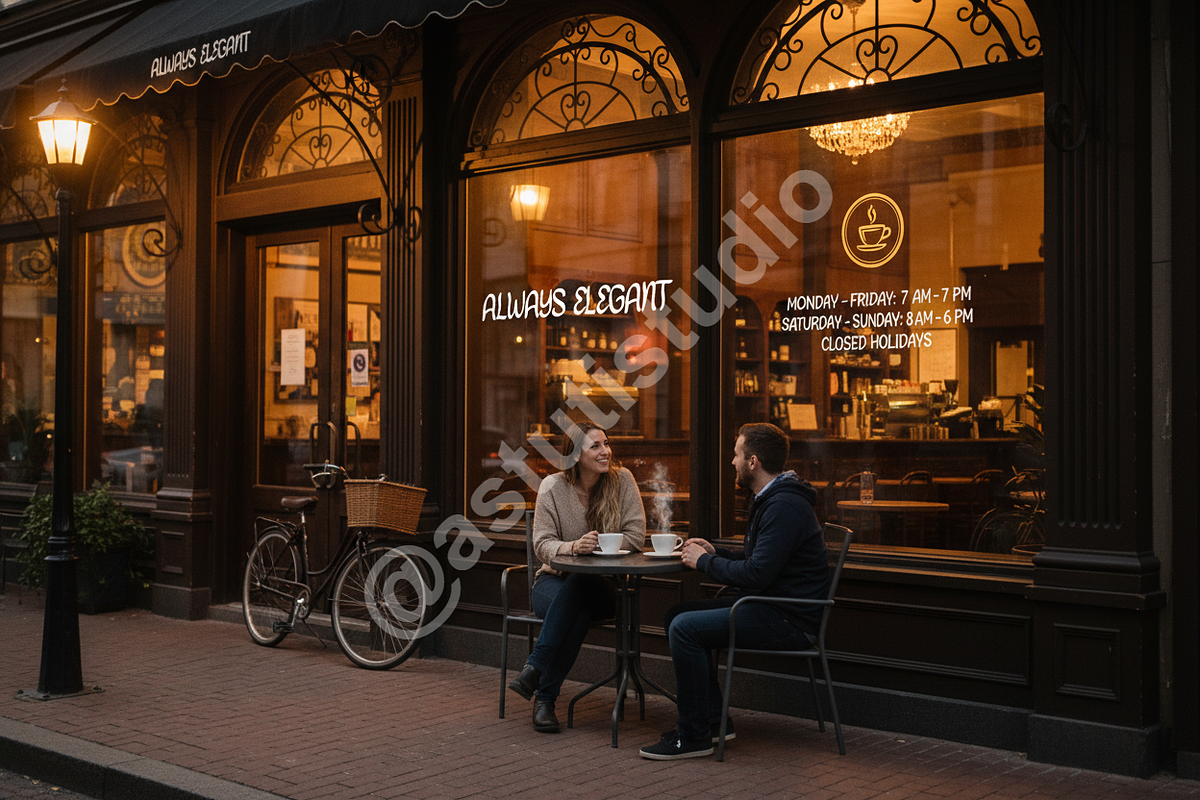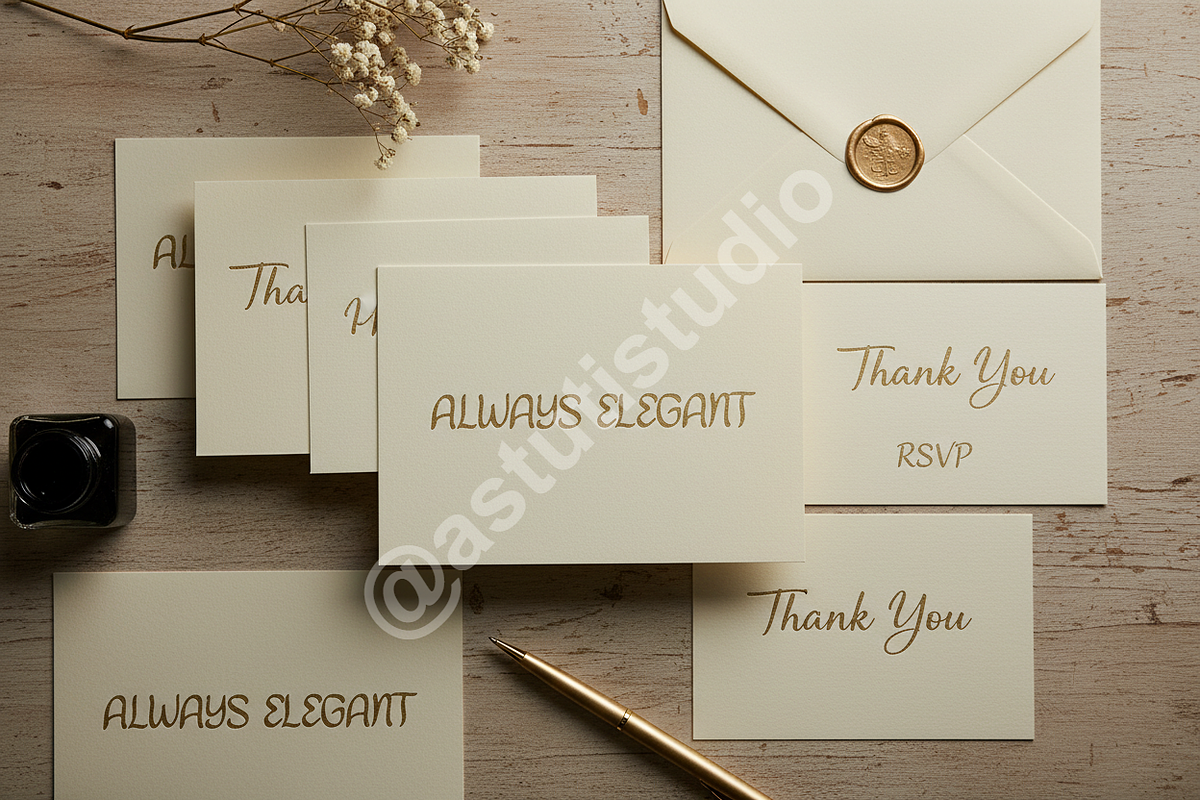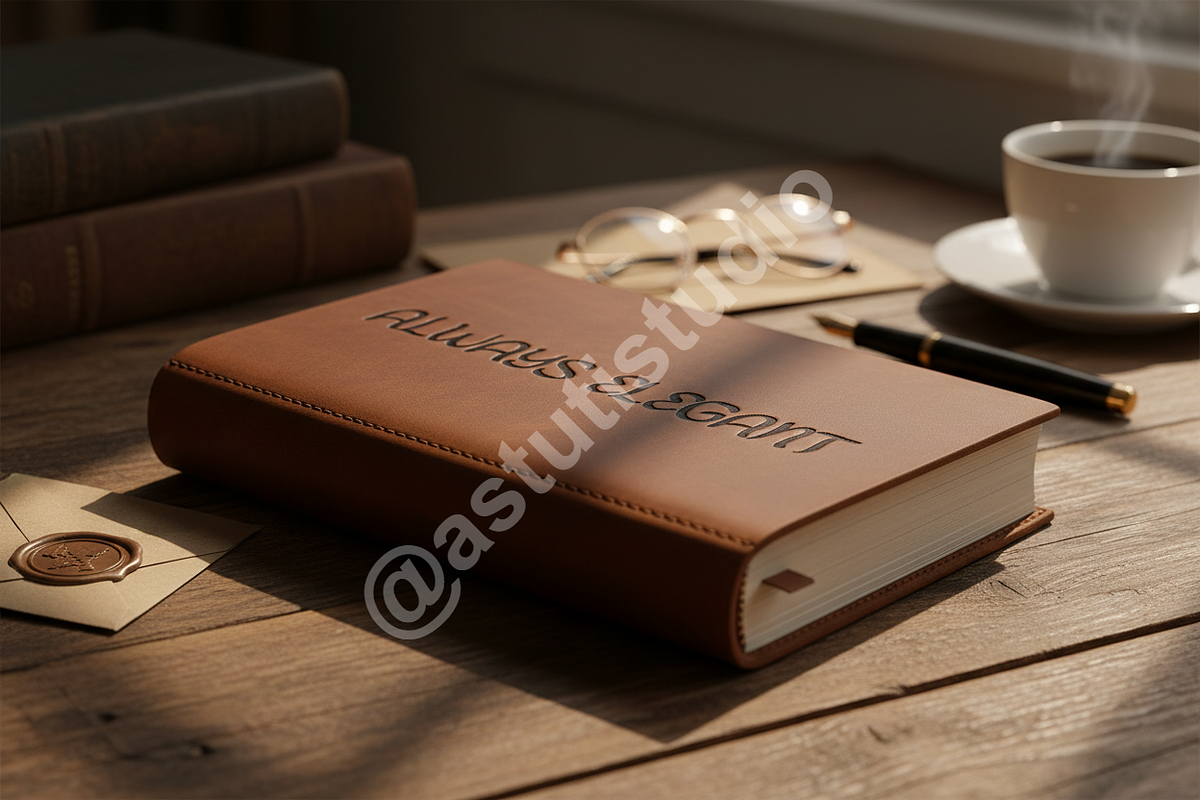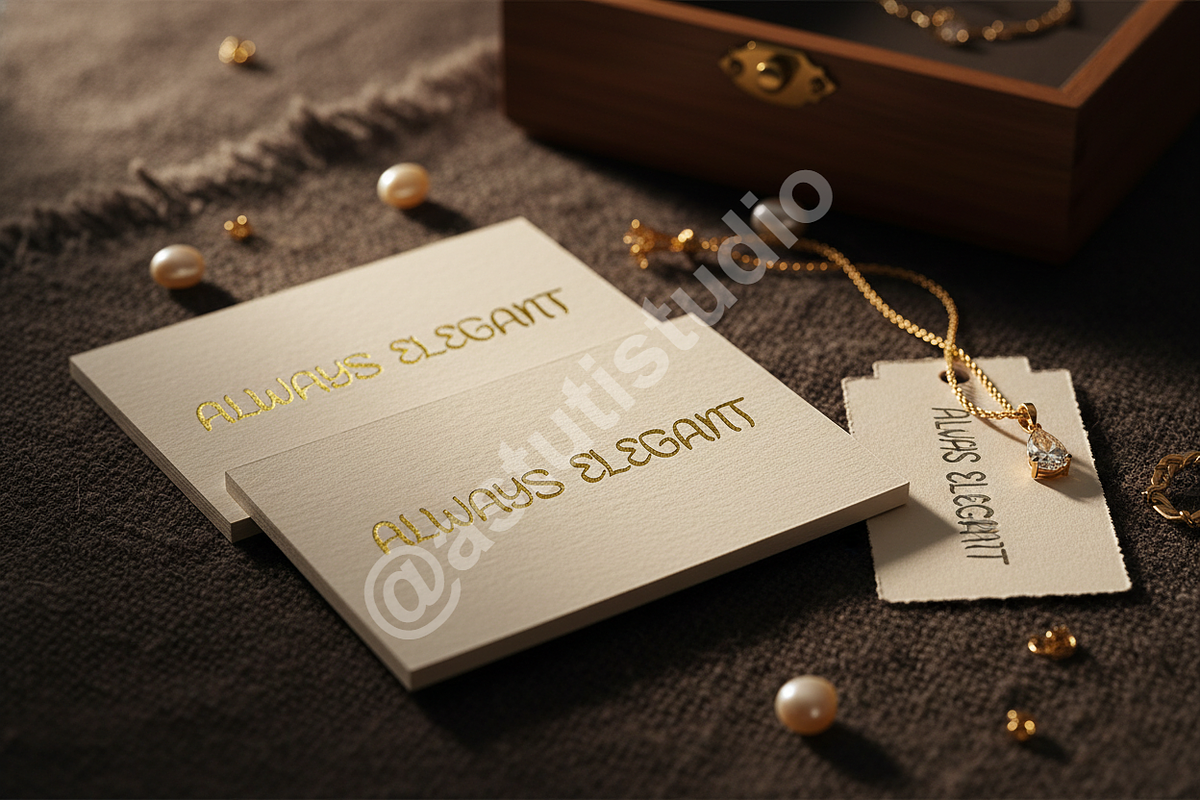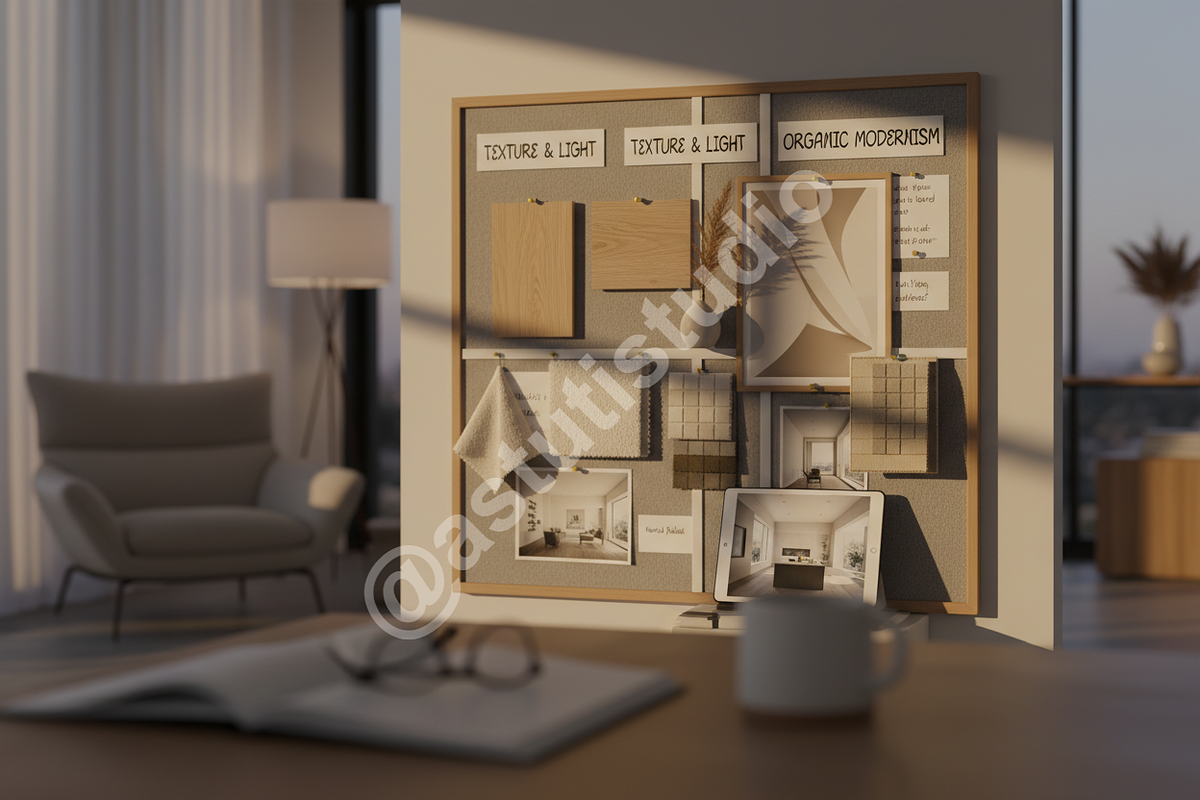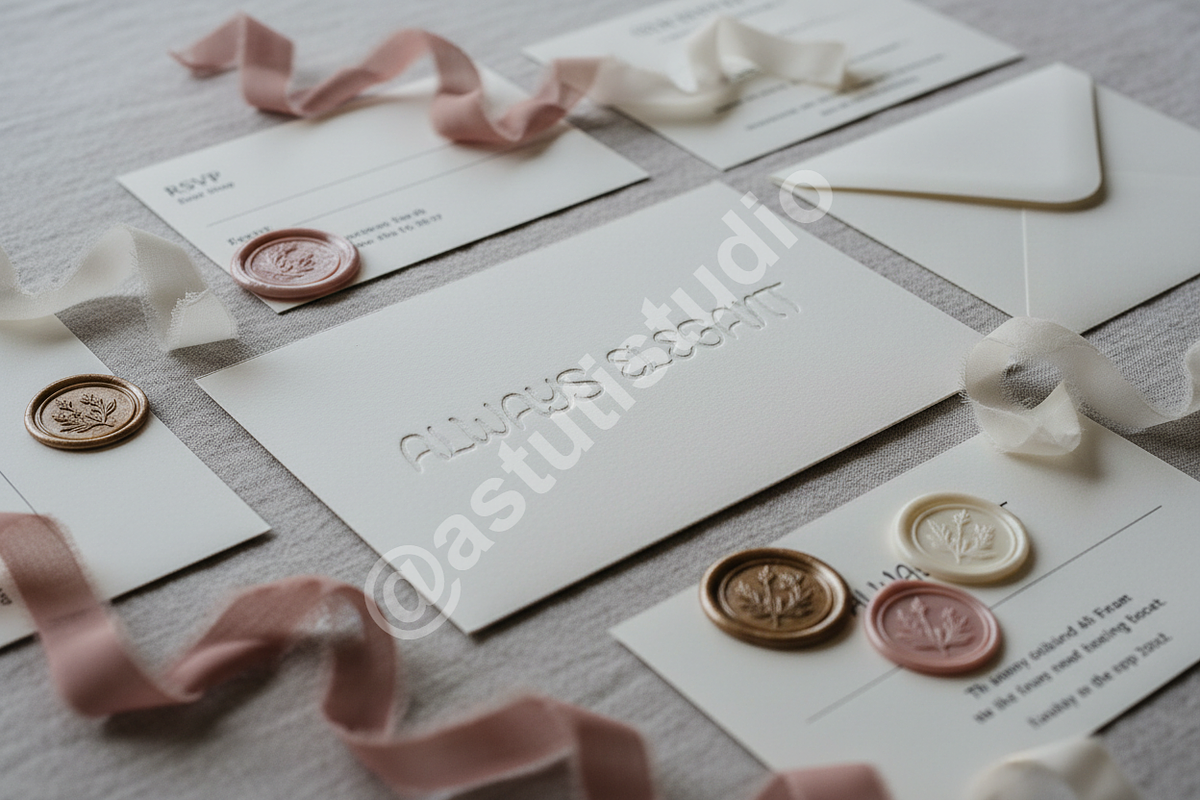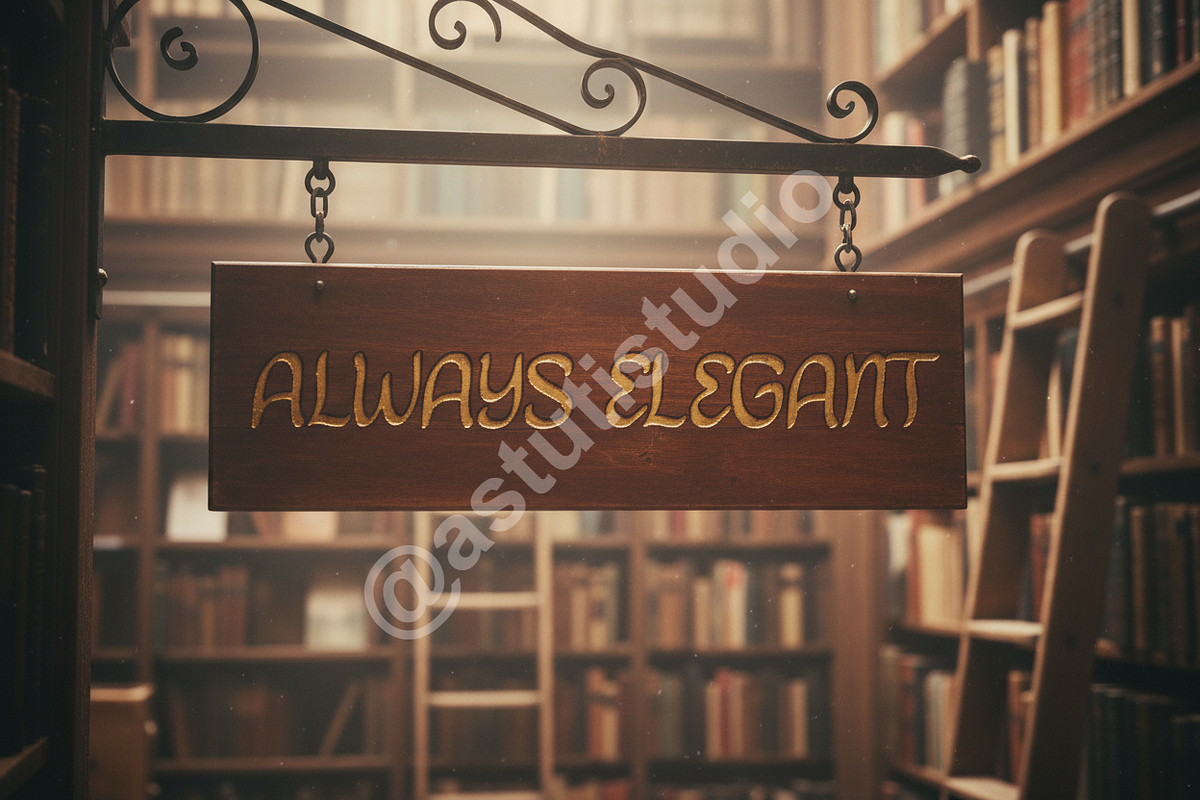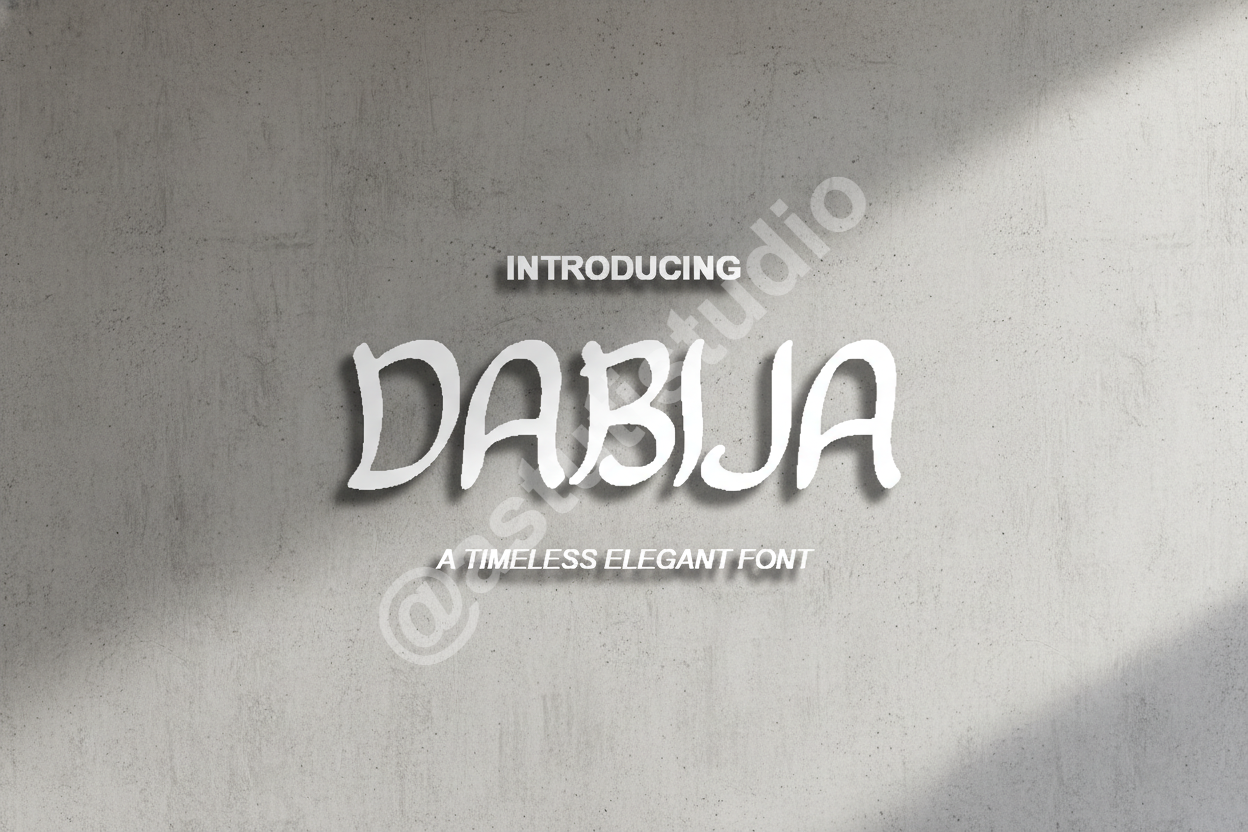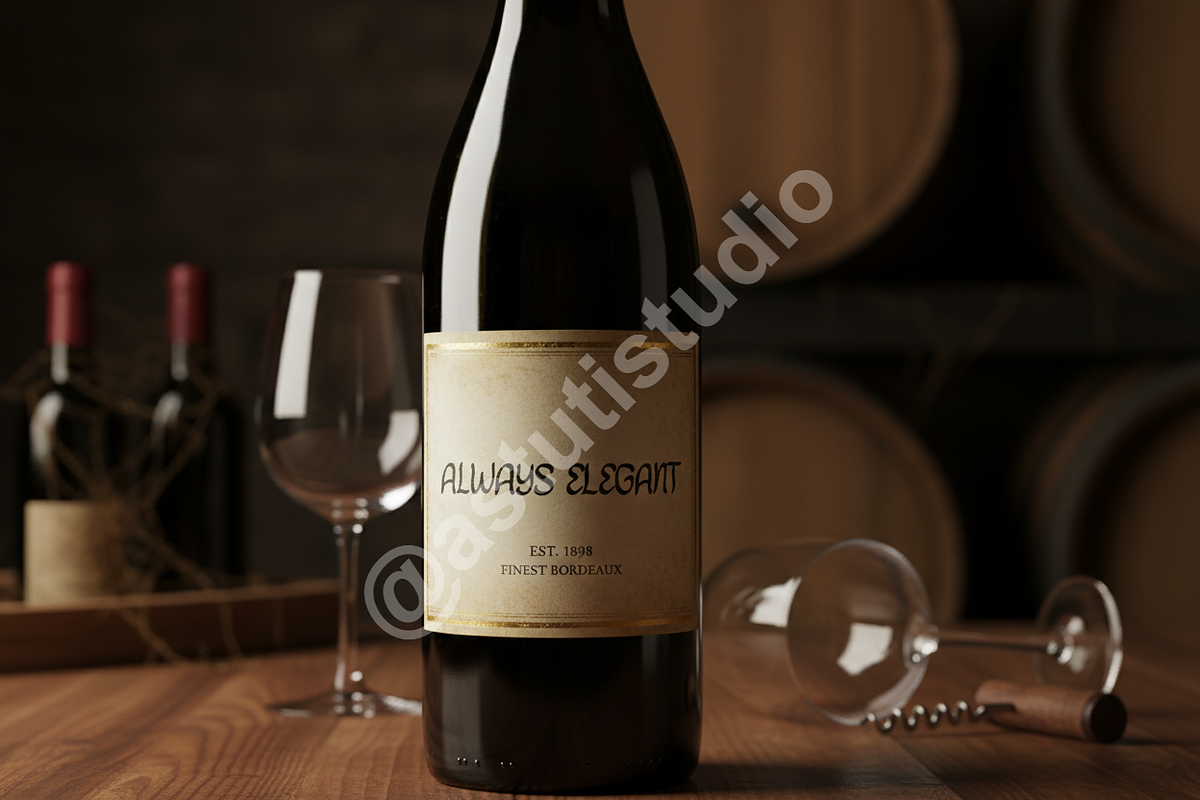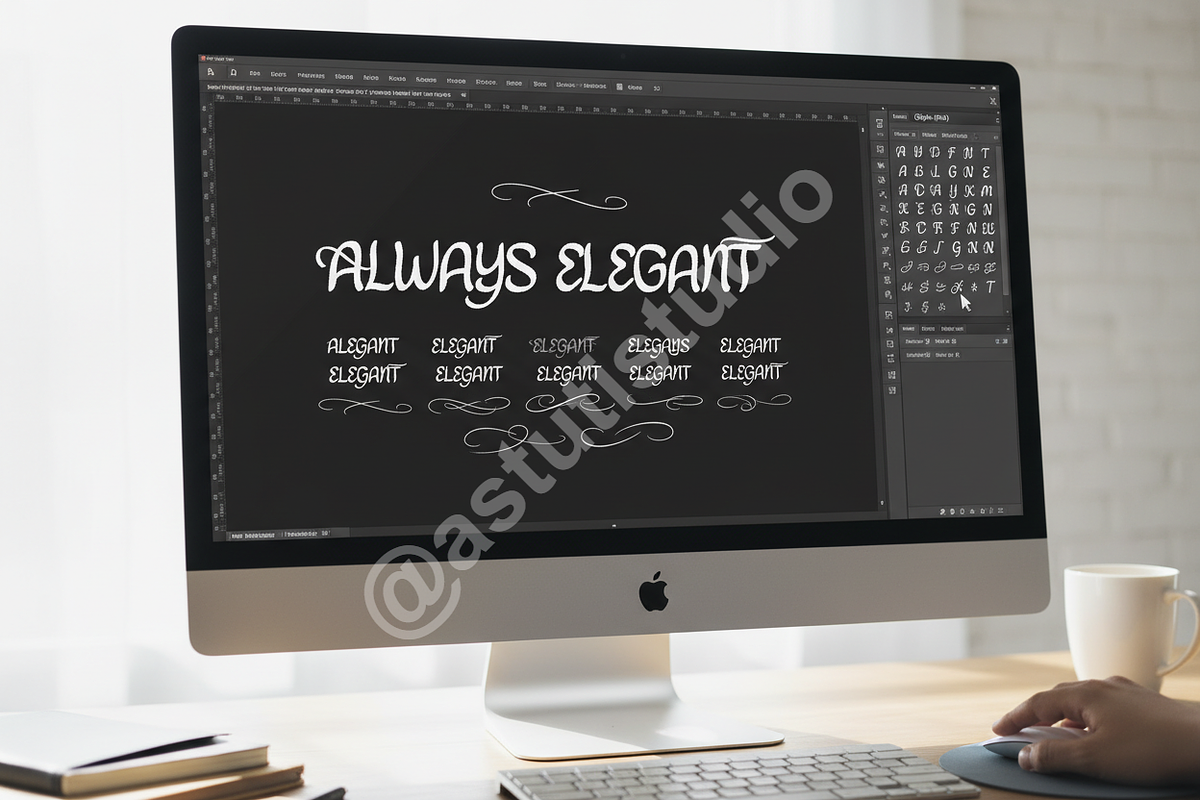
Dabija Typeface - Elegant Luxury Ser
Welcome to Dabija – a meticulously crafted serif typeface designed to infuse your projects with an air of unparalleled elegance and sophistication. Dabija is more than just a font; it is a statement of luxury, perfect for brands that demand a premium aesthetic and a timeless appeal.
Introduction: Dabija embodies modern refinement with classic grace. Its delicate curves and precise lines converge to create a captivating visual rhythm, making it an indispensable asset for high-end luxury branding, sophisticated editorial design, and impactful social media campaigns. Whether you're designing a prestigious logo, a sleek magazine layout, or engaging digital content, Dabija elevates your message with effortless style and authority.
- Exquisite Design: Elegant curves and sharp serifs create a harmonious blend of classic beauty and contemporary flair.
- Versatile Application: Ideal for branding, logos, headlines, editorial content, packaging, invitations, and social media graphics.
- Exceptional Legibility: Designed for clarity across various sizes, ensuring your message is always conveyed effectively.
- Extensive Character Set: Includes uppercase and lowercase letters, numbers, punctuation, and a wide array of multilingual characters.
- Stylistic Alternates & Ligatures: Enhance your typography with elegant alternatives and seamless letter connections for a truly unique look.